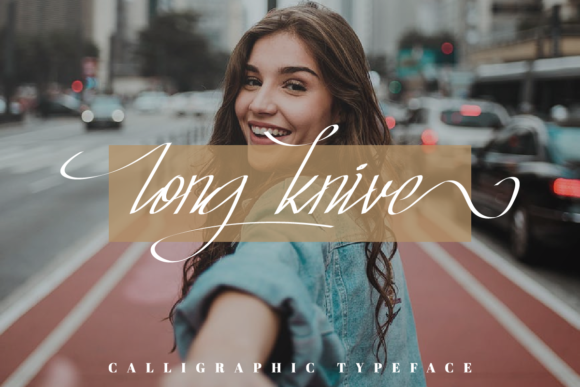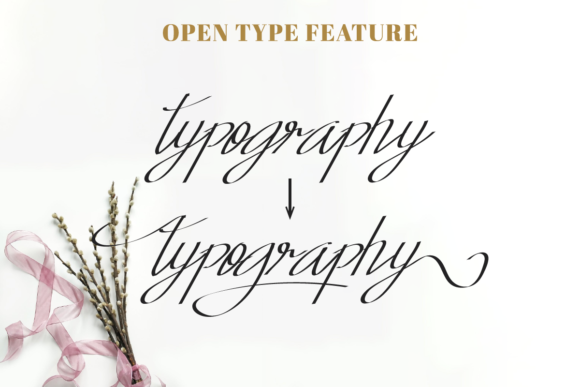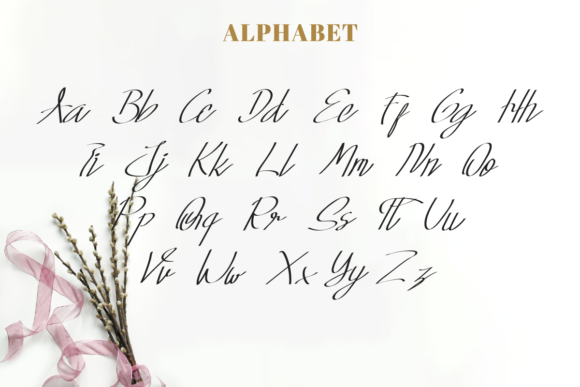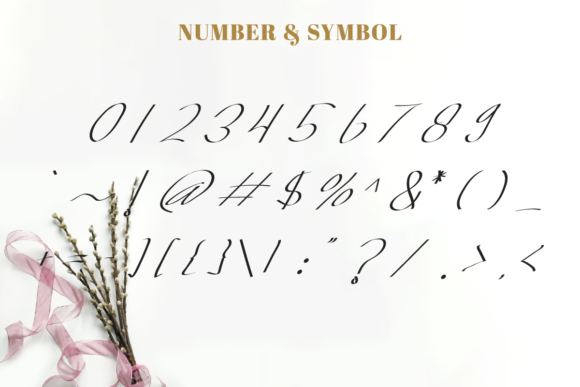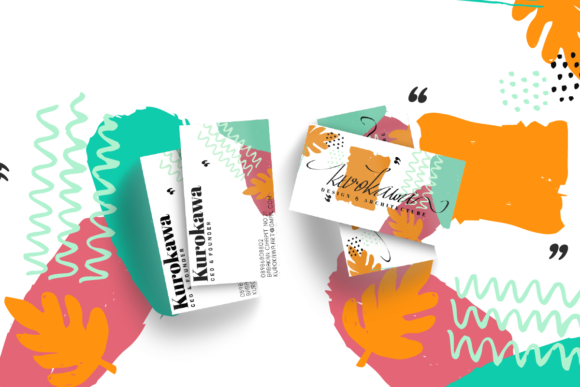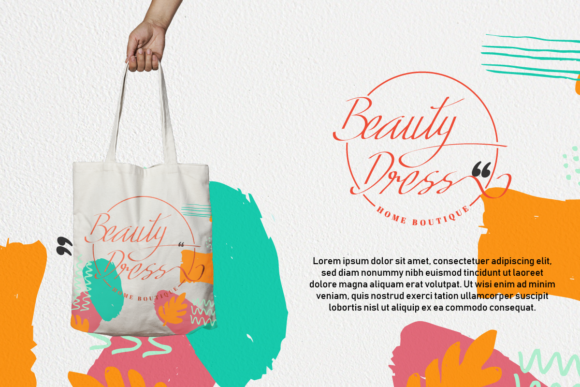
Introduction to Long Knive Font
Have you ever stared at a blank canvas, feeling stuck and unsure of where to begin your creative project? I’m sure many designers can relate to that moment of uncertainty. It’s a common phenomenon, especially when the goal is to stand out from the crowd and create something truly unique. That’s where the Long Knive Font comes in – a beautiful and smart handwritten font that’s about to become your new design best friend.
This high-quality font boasts a sophisticated feel, making it an ideal design resource for any project. Whether you’re working on a branding campaign, creating a wedding invitation, or designing a product label, the Long Knive Font is sure to elevate your work to the next level. Plus, with a transparent background, you can easily customize it to fit your needs.
Key Features of Long Knive Font
- Unique blend of modern and vintage design elements, perfect for creative projects requiring a high-quality, unique aesthetic.
- High-resolution design, suitable for print and digital applications, with a resolution of 300 DPI.
- Available in multiple font sizes and weights, providing designers with flexibility and versatility in their creative projects.
- Designed to be highly legible and readable, making it an ideal choice for a wide range of design applications.
Honest Review: Long Knive Font
As a designer, I’m always on the lookout for high-quality design resources to elevate my creative projects. The Long Knive Font caught my eye, and I was excited to dive in and see what it had to offer.
What works well: ✨ The Long Knive Font has a sleek and modern aesthetic that’s perfect for contemporary design projects. The font is highly customizable, making it easy to adjust the size, color, and spacing to fit your specific needs. I also appreciate that it’s a free download, making it an excellent addition to any designer’s toolkit.
What doesn’t work so well: ⚠️ While the Long Knive Font is a great option for most design projects, I did encounter some issues with the transparent background. In some cases, it can be tricky to get the background to render correctly, which can be frustrating. Additionally, the font’s weight and style options could be more extensive.
Overall, I’m impressed with the Long Knive Font’s potential and versatility. With a little practice and patience, it can be a valuable asset for designers looking to add a modern touch to their creative projects.
Key features:
- Sleek and modern aesthetic
- Customizable font
Getting the Most Out of Long Knive Font
To maximize the effectiveness of the Long Knive Font, use it in bold headings and titles to create a striking visual impact. Experiment with different font sizes and styles to add depth and interest to your design.
The Long Knive Font is ideal for creative projects that require a unique and eye-catching font. Use it for:
- Brand logos and identity design
- Infographics and data visualization
- Print materials, such as business cards and brochures
Q: Does the Long Knive Font have a transparent background?
Yes, the Long Knive Font has a transparent background, making it ideal for use on various backgrounds, including images and videos. This feature allows for seamless integration with other design elements.